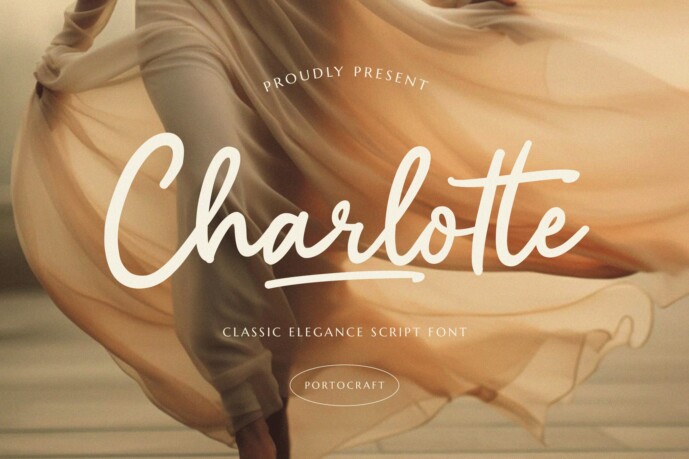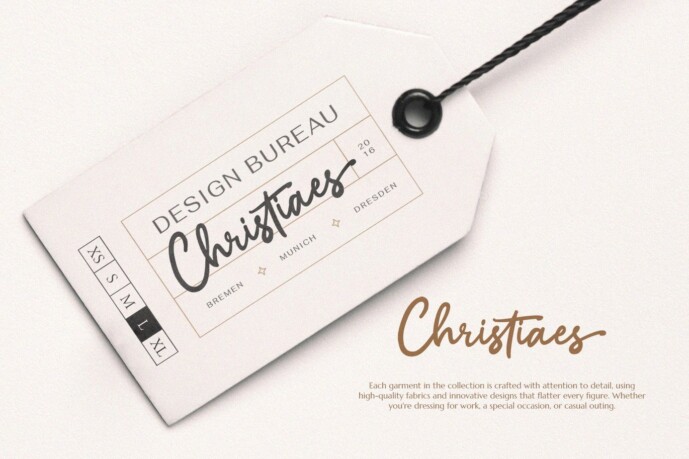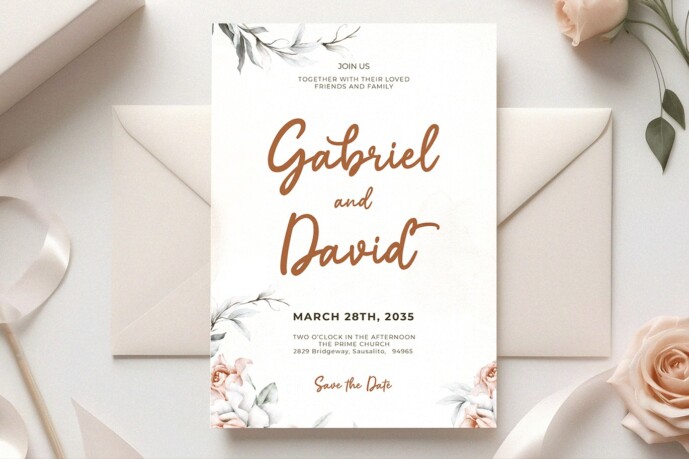
Charlotte Classic Elegance Font
Designer: portocraft
Charlotte Classic Elegance is a stylish font It has both perfect for wedding invitations, elegant handwritten logos and branding, websites, social media quotes, and more! Included are a full set of beginnings.